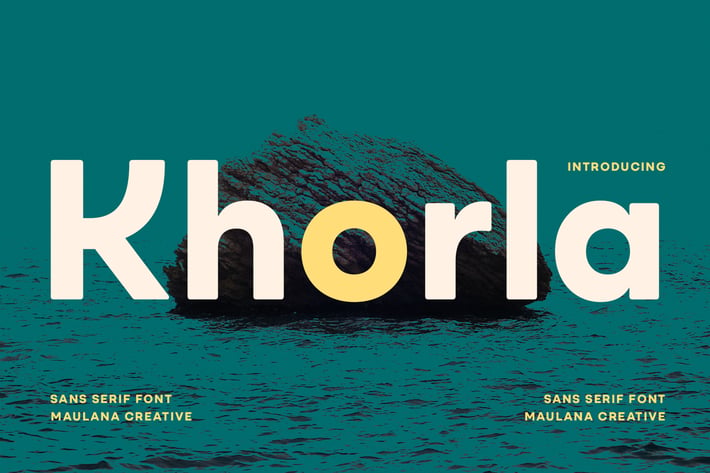
Khorla Soft Sans Serif Display Font
Khorla is a simply semi-geometric sans serif font. With soft edges stroke, fun character with a bit of ligatures and alternates. To give you an extra creative work. Khorla font support multilingual more than 100+ language. This font is good for logo design, Social media, Movie Titles, Books Titles, a short text even a long text letter and good for your secondary text font with sans or serif. Make a stunning work with Khorla font.